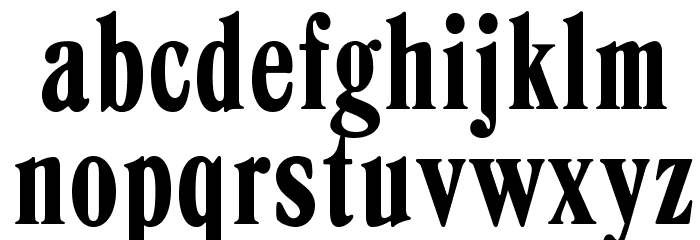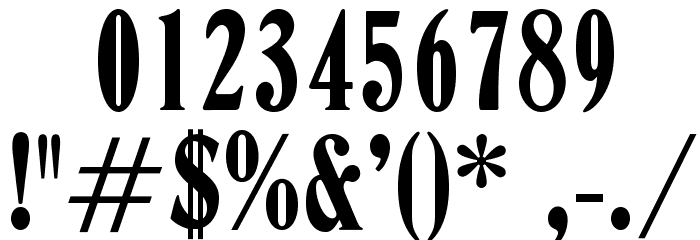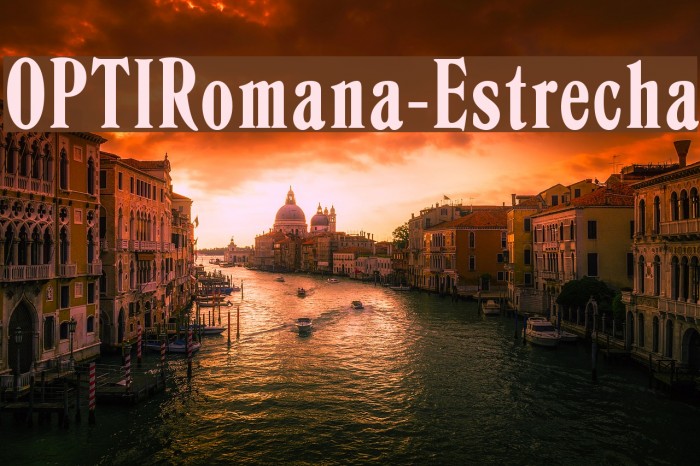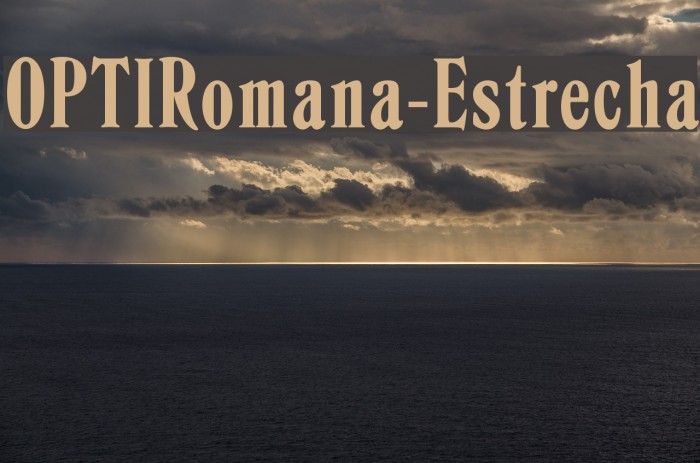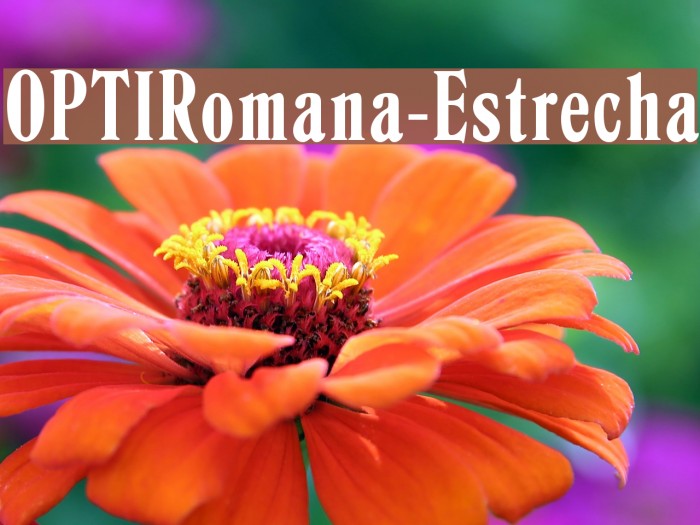
OPTIRomana-Estrecha Font
This font features a bold and striking appearance with high contrast between thick and thin strokes, giving it a dramatic and elegant look. The serifs are pronounced and slightly curved, adding a touch of sophistication. The uppercase letters are tall and commanding, while the lowercase letters maintain a consistent style with a slightly condensed form. The numerals are clear and well-defined, ensuring readability. Special characters are crafted with the same attention to detail, making them suitable for various design needs. Overall, this font exudes a classic yet modern vibe, perfect for making a strong visual impact.
A bold, high-contrast serif font with elegant curves and a classic yet modern style.
- Proposed Projects: Ideal for headlines, branding, editorial design, and any project requiring a strong and sophisticated typeface.
- Category: Serif
- Overall Style: Classic